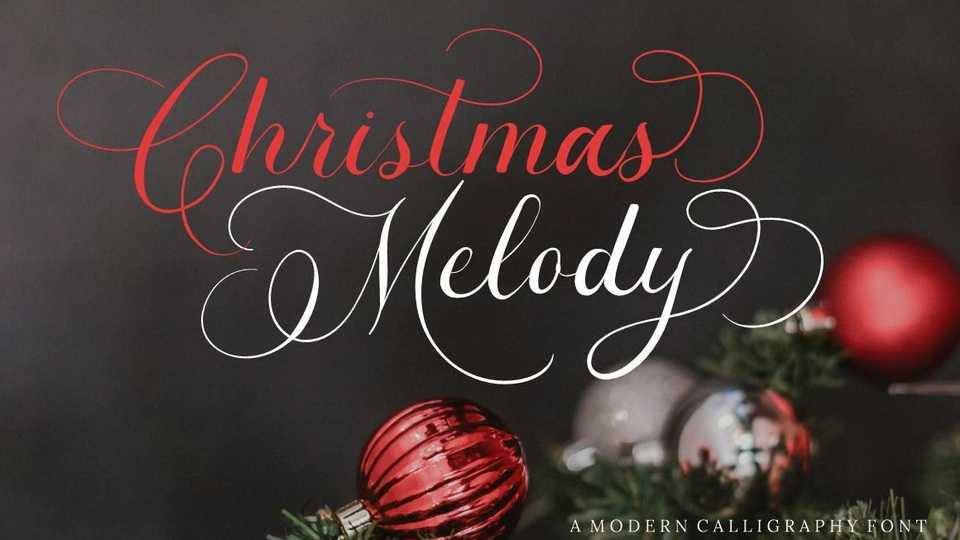
Christmas Melody Script Font › Fontesk – Download Grátis
Download Christmas Melody font, a modern handwritten script made with a classic style and a touch of elegance. Christmas Melody is perfect for a red wine label, wedding stationery, invitations, business cards, branding, and other projects that require a touch of handwriting and luxury.